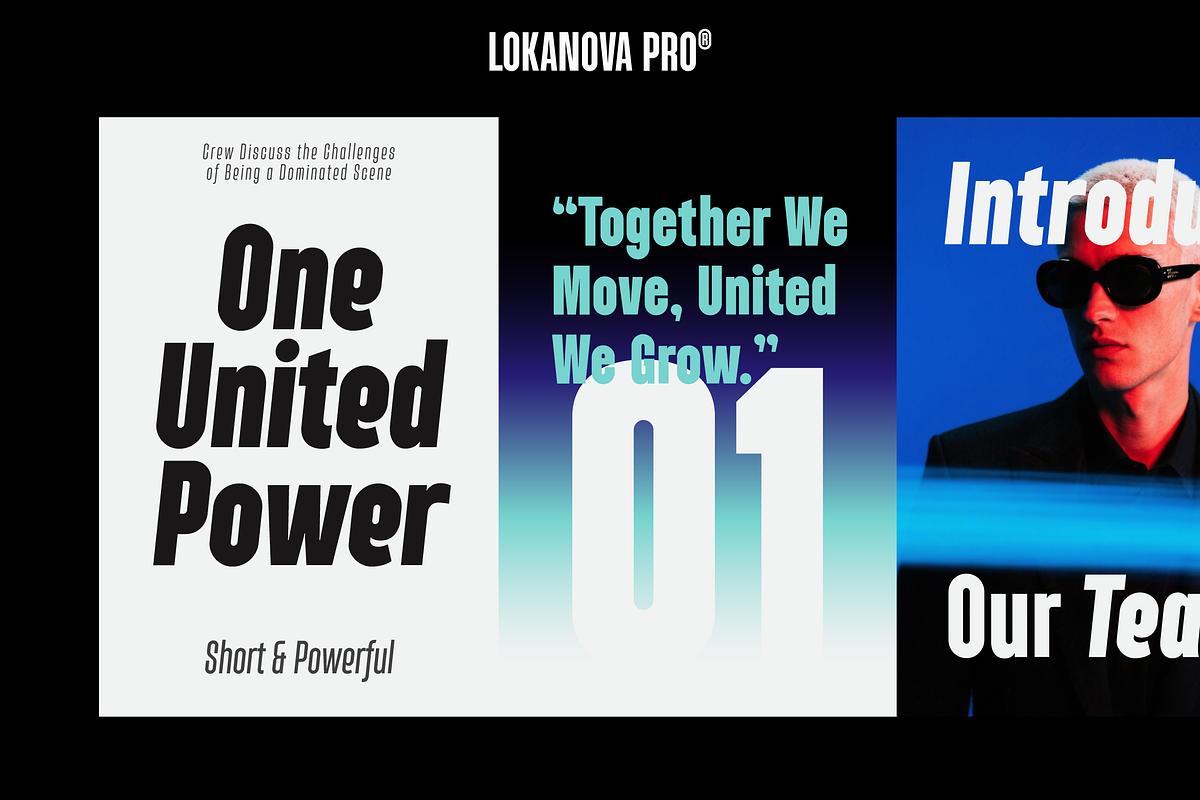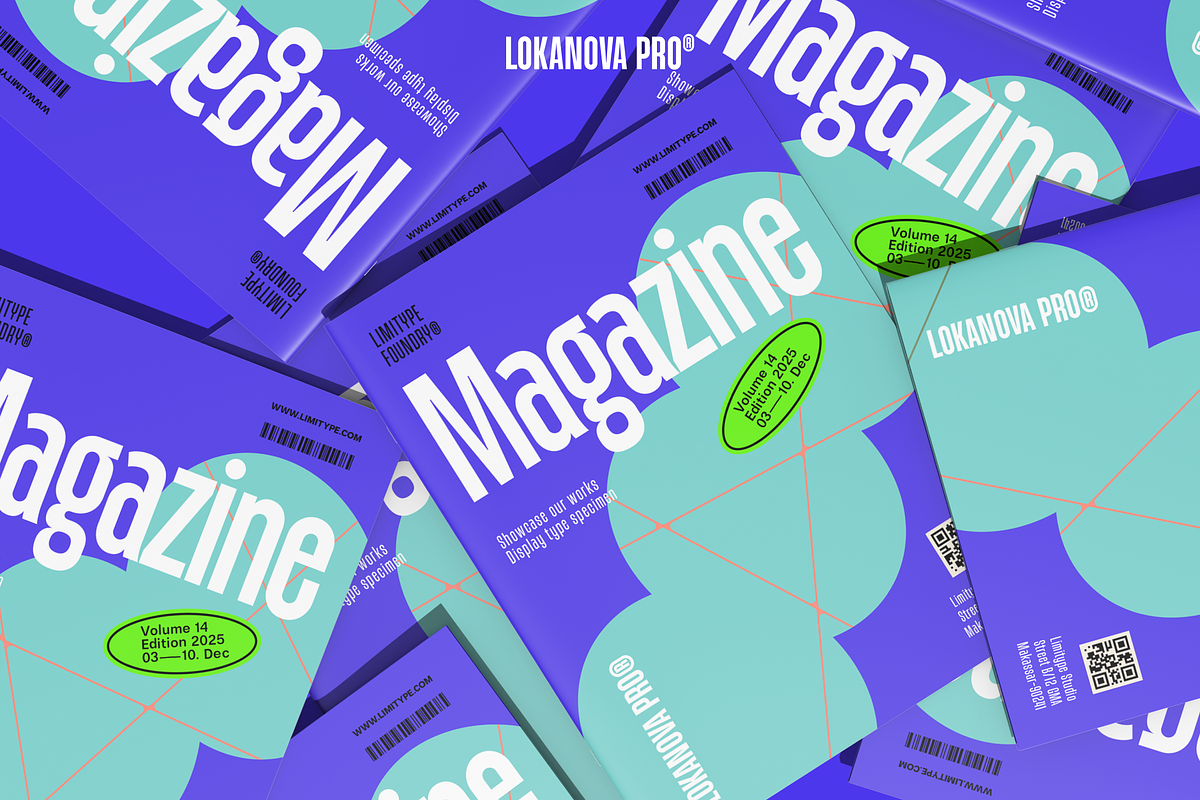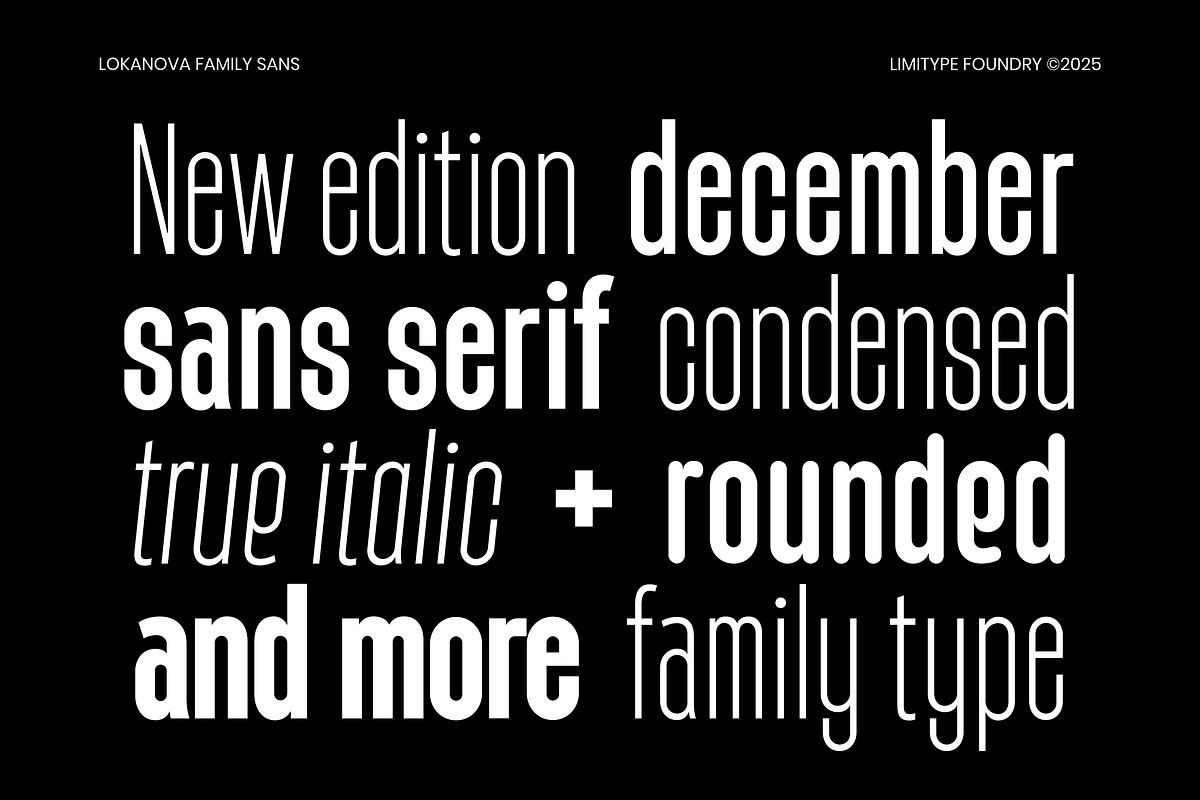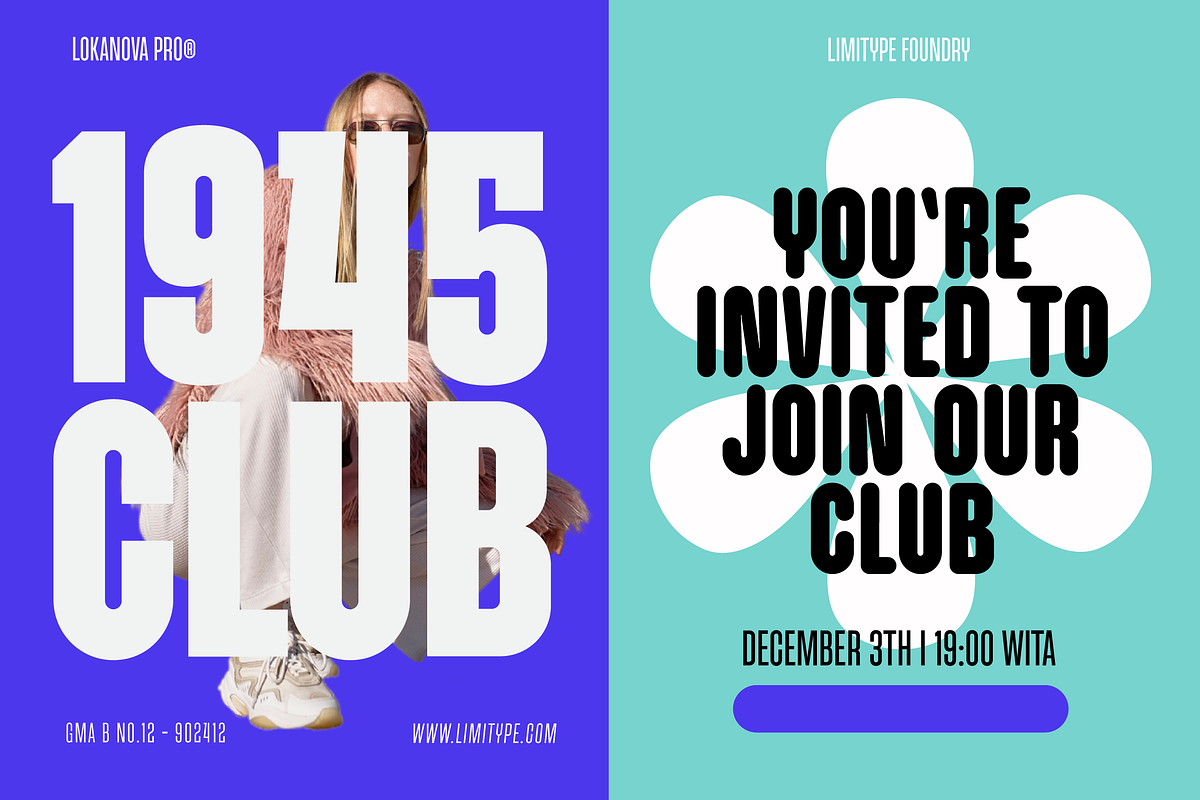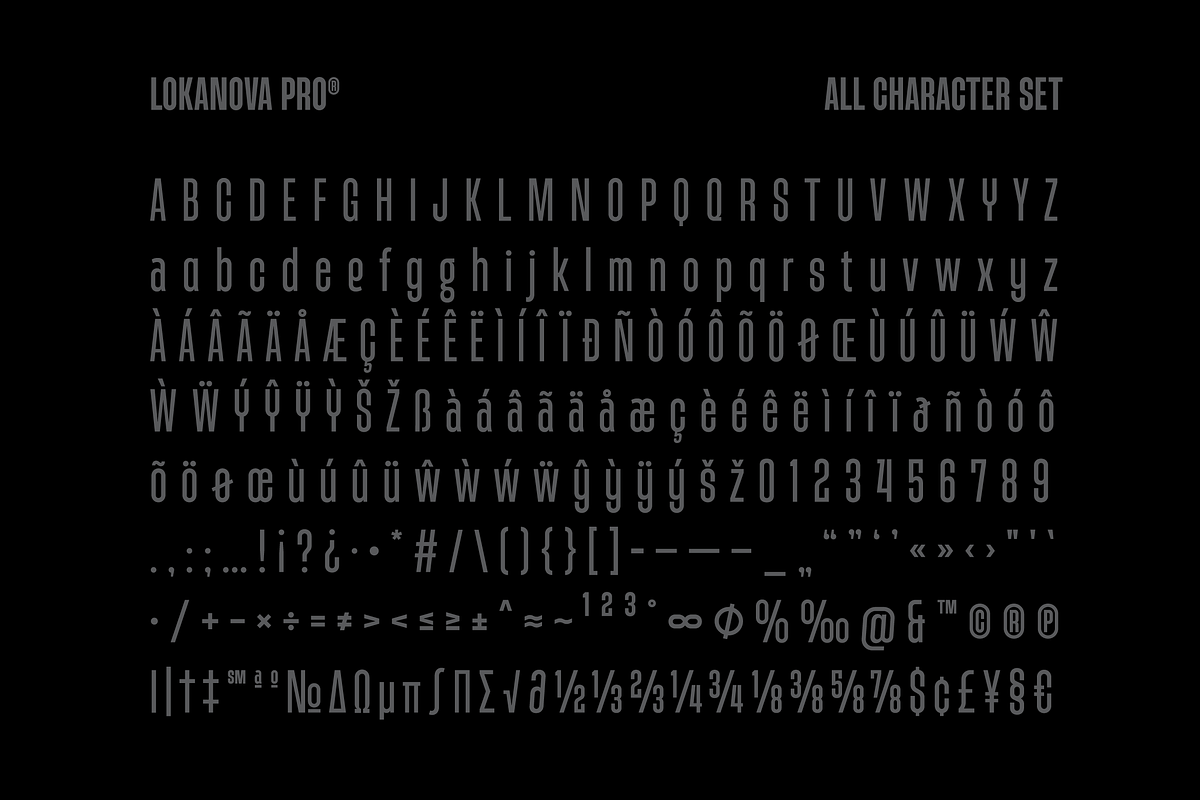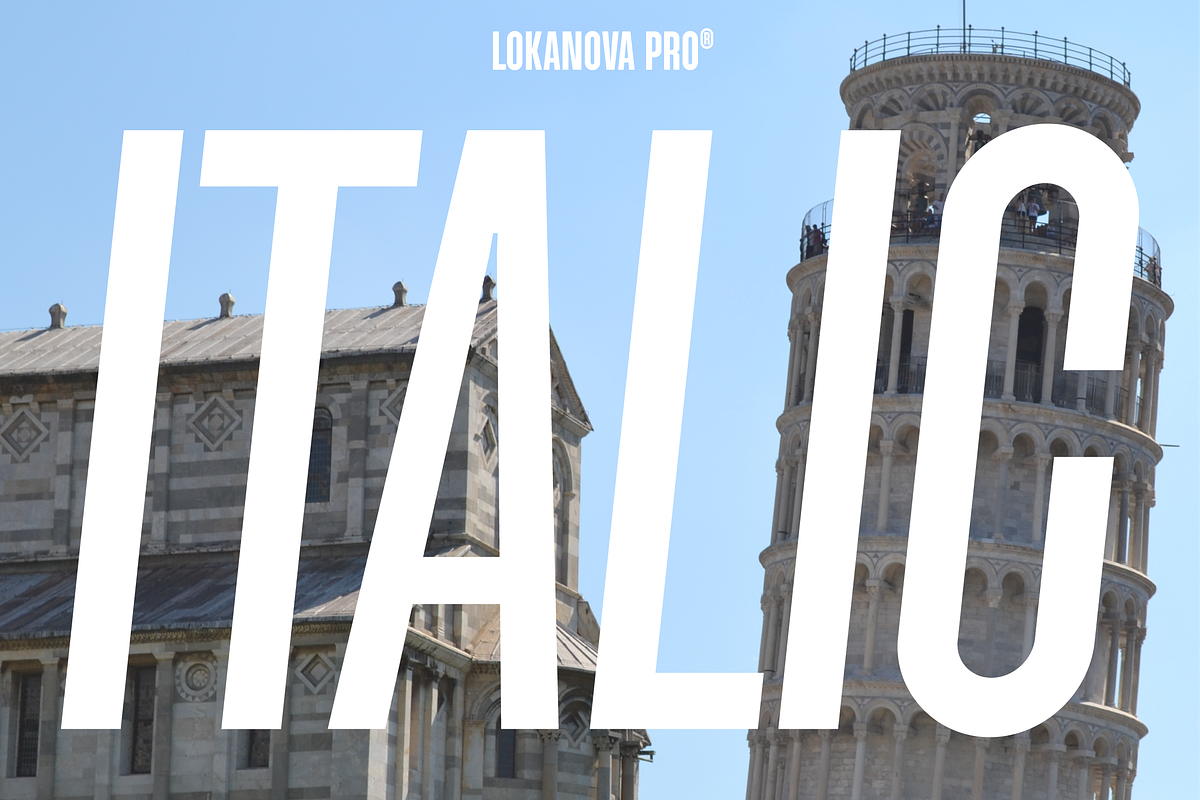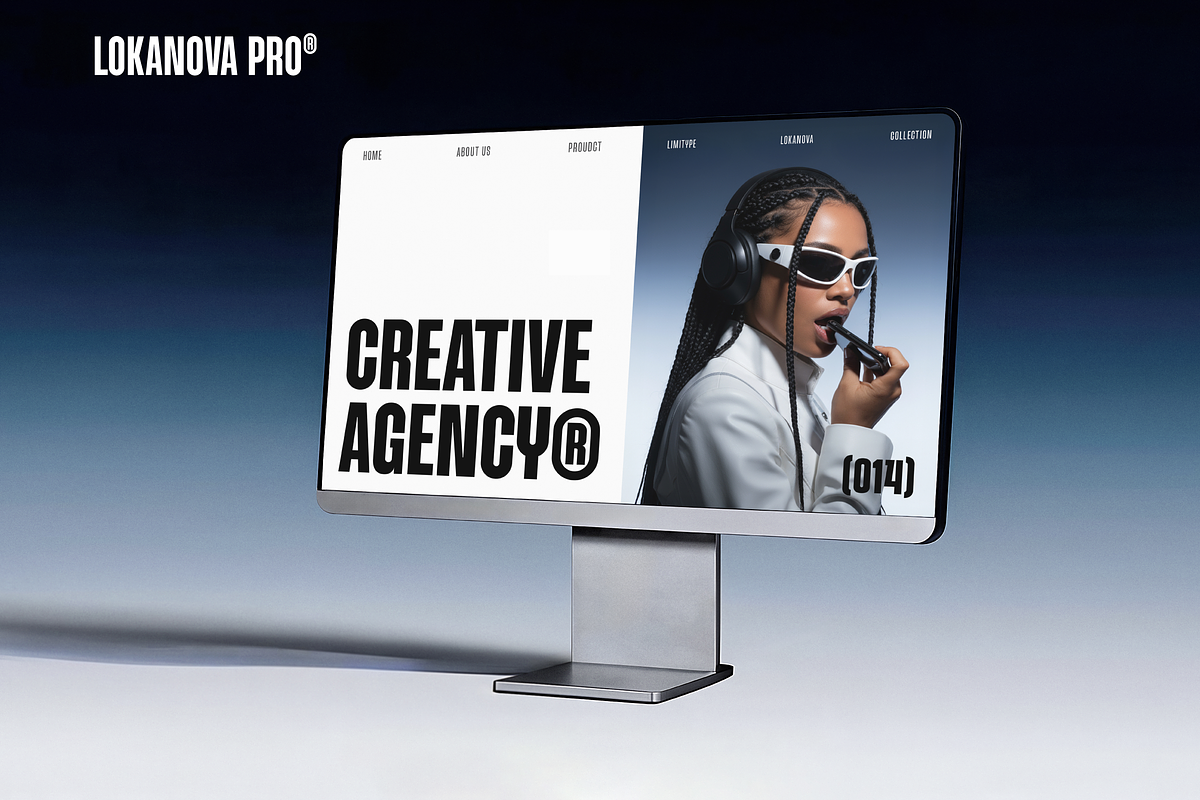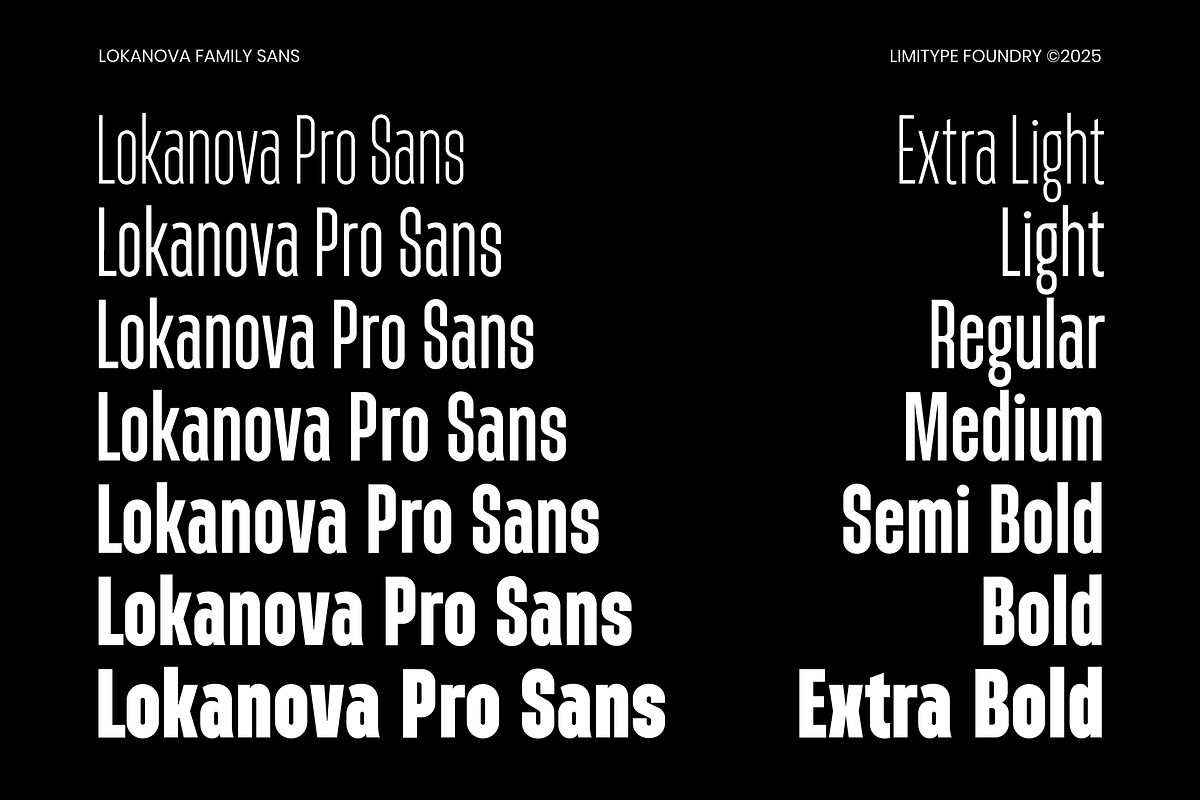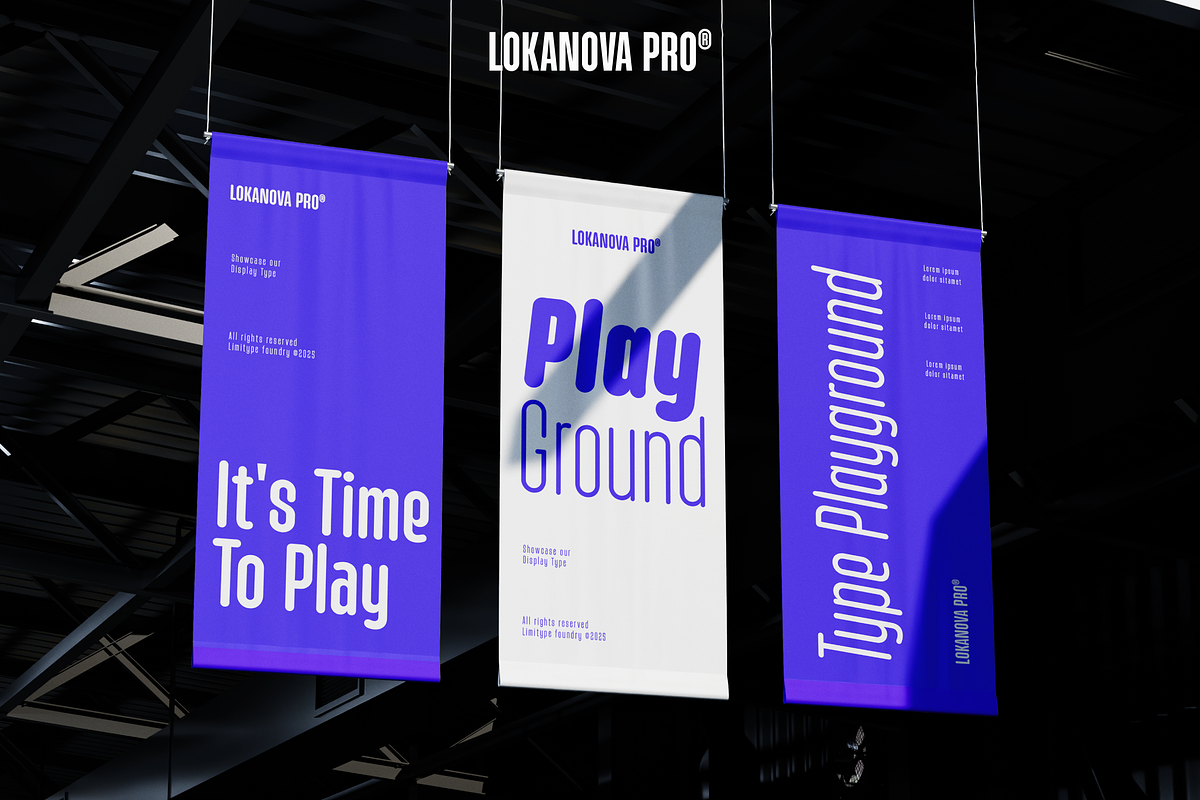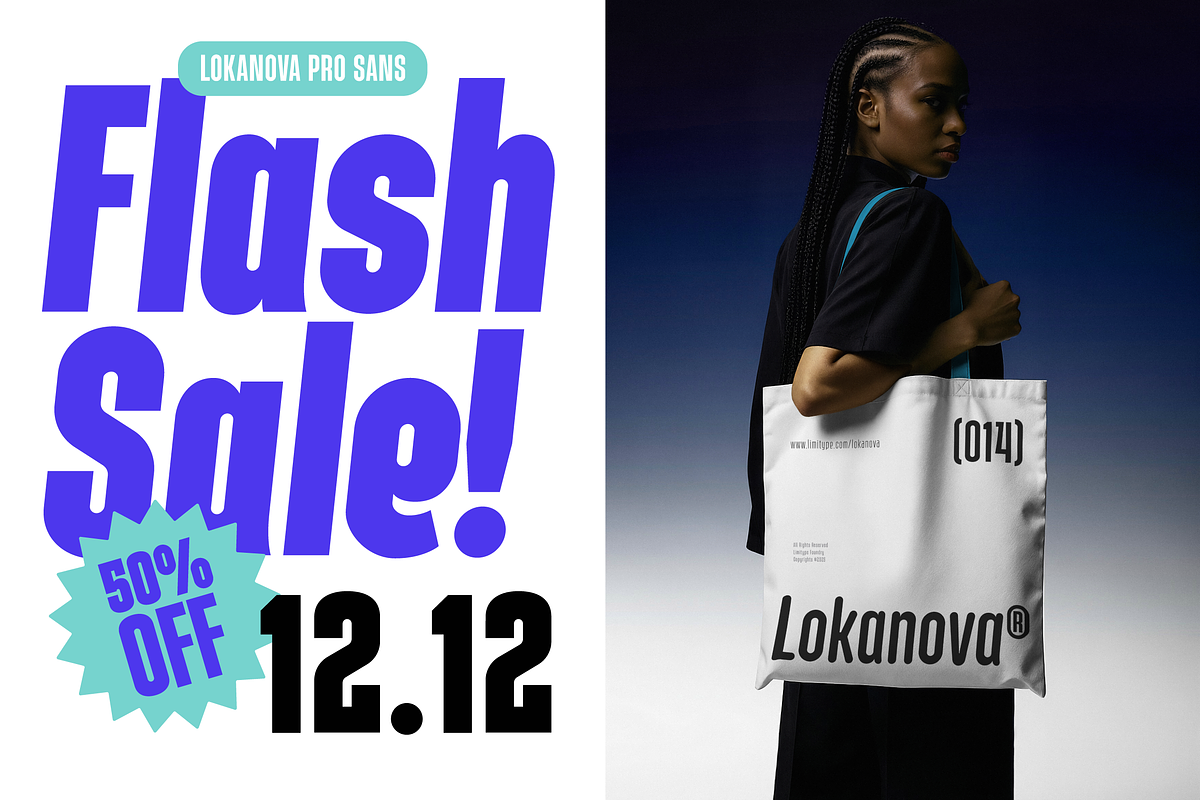
Lokanova Pro - Sans Serif Font
This is the pro version of the previous font, Lokanova Standard, featuring an updated family that is more versatile and enriched with additional glyph characters. Lokanova Pro is suitable for display needs or designs that require large text, and it can also serve as body text.
Lokanova Pro available with:
- Number & Symbols
- Basic, Italic, Rounded, Rounded Italic